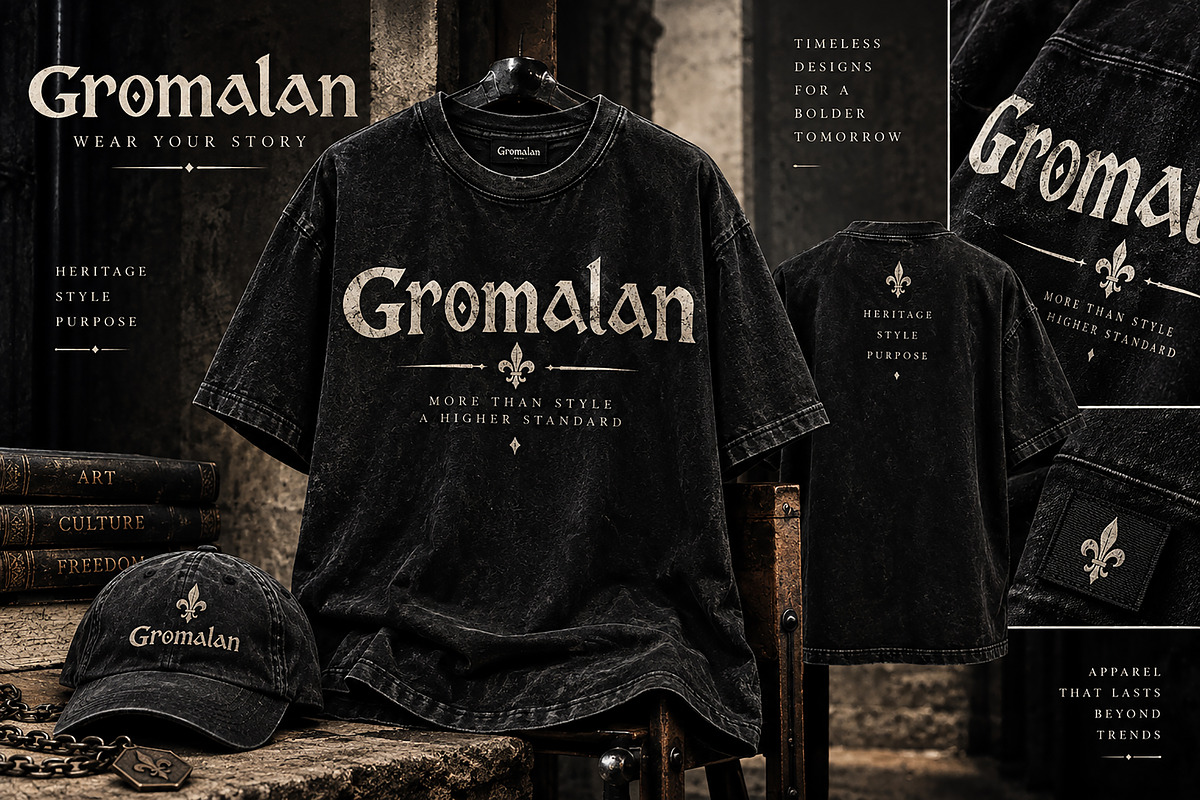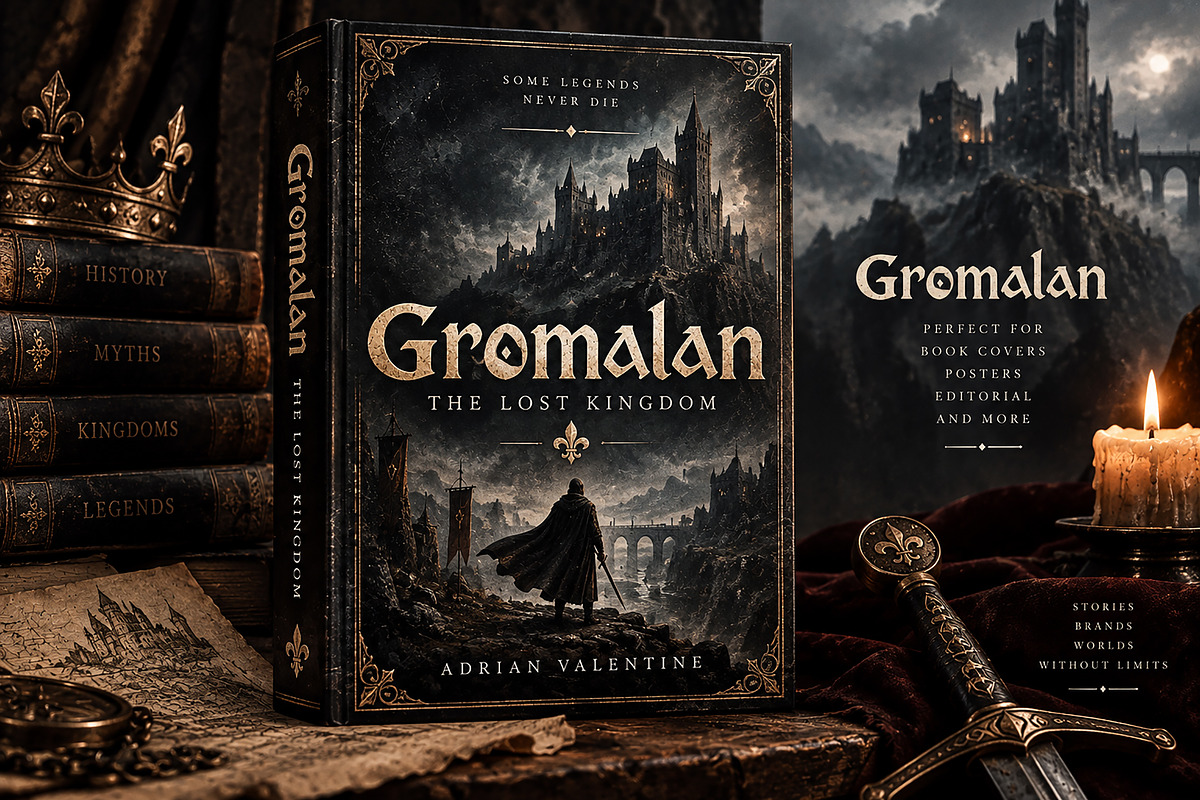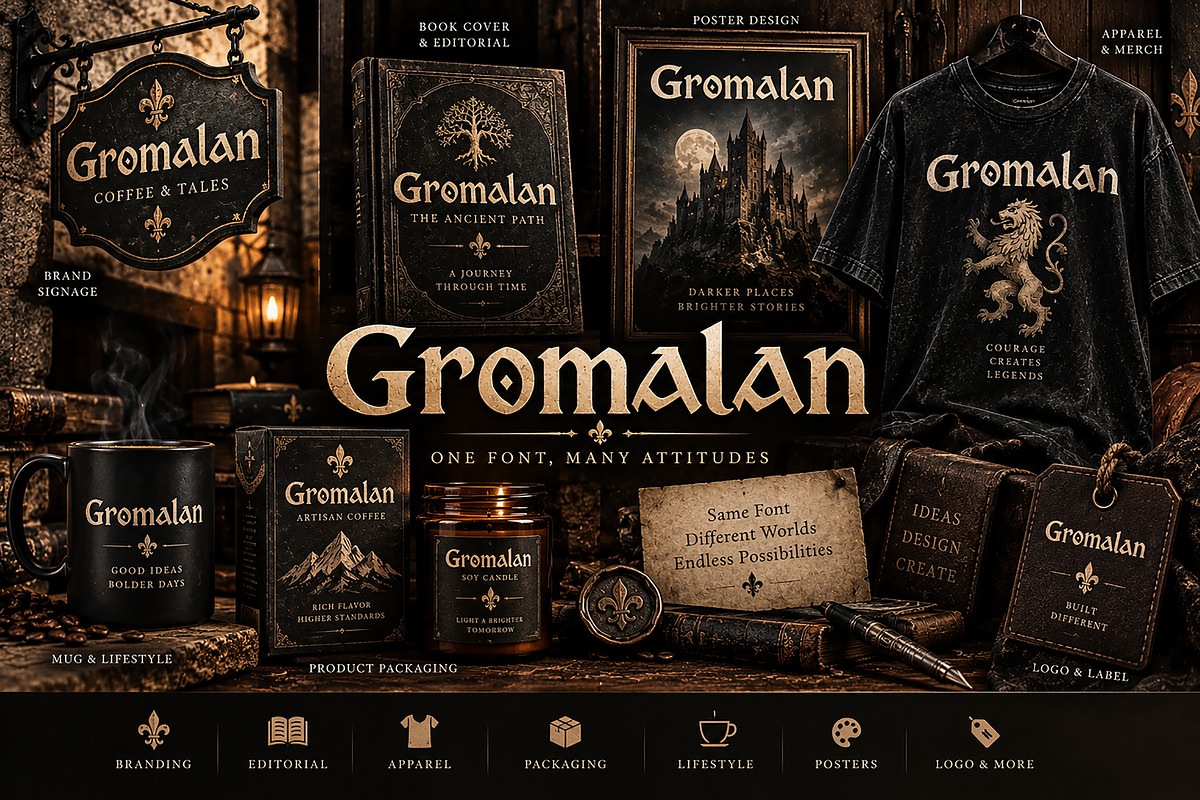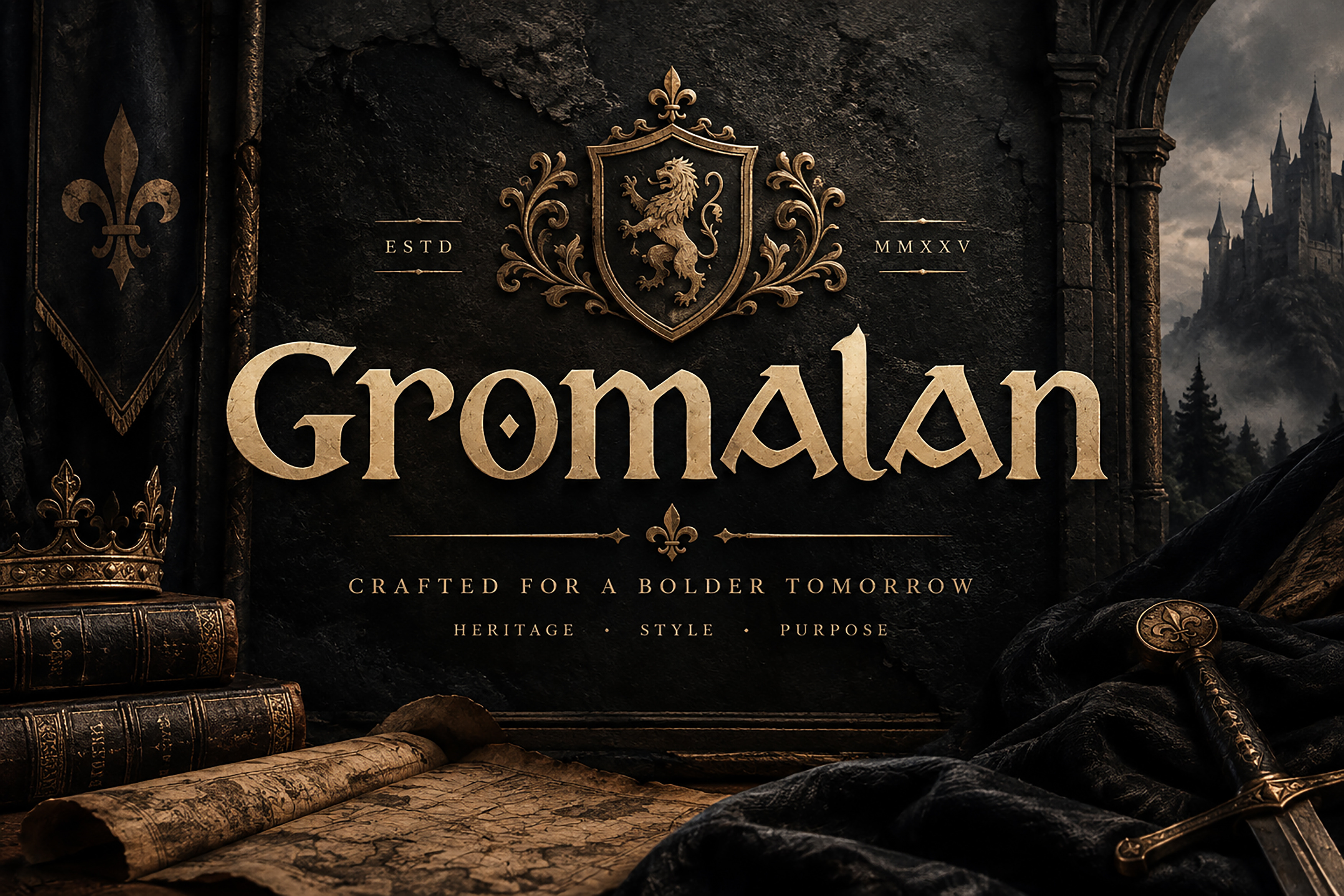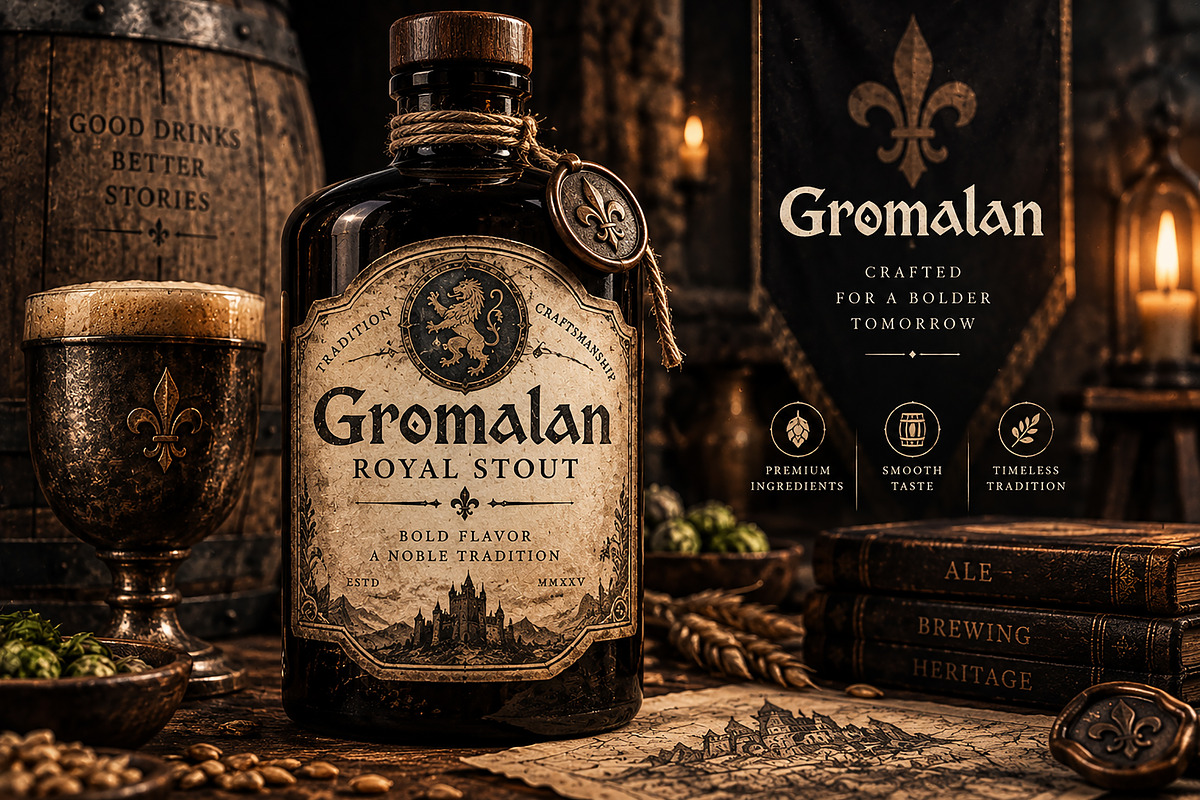
Gromalan — Gothic Blackletter Font
Gromalan is a bold and distinctive Gothic Blackletter display font designed to bring a powerful medieval, historic, and luxurious character to your creative projects.
With its dramatic letterforms, sharp details, strong presence, and ornamental personality, Gromalan is perfect for designs that need an authentic Gothic, medieval, heritage, or dark luxury aesthetic.
Whether you're creating a striking brand identity, fashion collection, book cover, poster, packaging design, or merchandise, Gromalan is designed to make your typography the center of attention.
Gothic & Medieval Branding
Logo & Wordmark Design
Streetwear & Apparel
T-Shirt & Hoodie Designs
Book & Journal Covers
Posters & Album Artwork
Labels & Badges
Tavern & Artisan Branding
Tattoo-Inspired Designs
Fantasy & Historical Projects
Editorial Design
Signs & Merchandise
Creative Typography Projects
Bold Gothic / Blackletter display style
Strong and distinctive letterforms
Medieval and heritage-inspired character
Excellent for large display typography
Suitable for branding and merchandise
Designed for impactful headlines and titles
Great for both vintage and contemporary compositions
Gromalan is made for designers who want their typography to feel bold, historic, mysterious, and unforgettable.